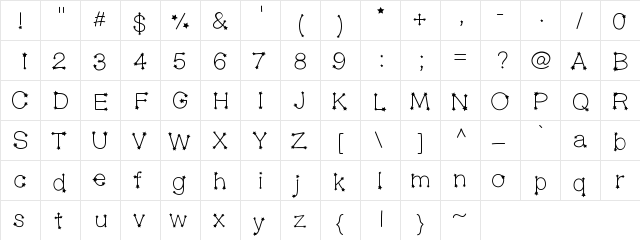
MidnightConstellations Medium
Design Context for MidnightConstellations Typeface
MidnightConstellations takes a measured approach to typography — its balanced proportions and neutral character make it a reliable workhorse for both digital and print work.
Pro Tip: Pair MidnightConstellations with a font of contrasting weight or personality to build a more expressive typographic hierarchy.